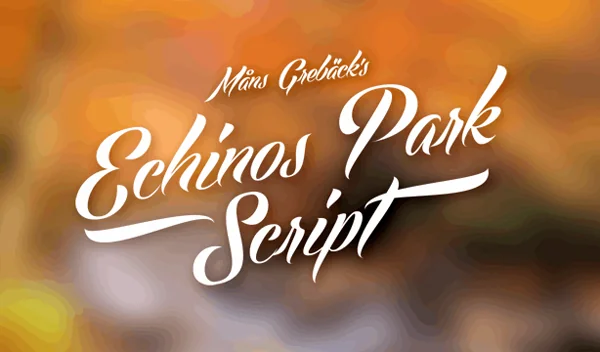
A few days back we presented a collection of calligraphic fonts, which we got a good response. And today we decided to take you deep inside another beautiful handwritten script font.
Every handwritten font cannot be used, therefore, to save you time, from selecting hundreds of thousands of fonts available online, we made a collection of the fifty best script fonts.
All the fonts in this collection are extremely creative and artistically created, we hope you will like this resource from us.
1. akaDora
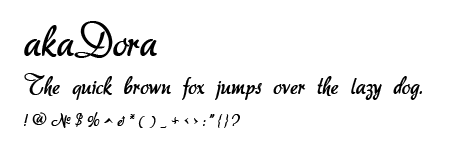
2. Cream Puff
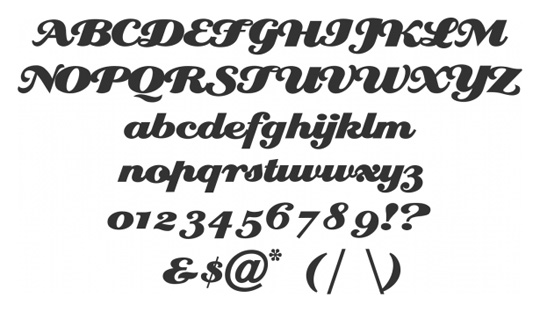
3. Pacifico by Vernon Adams
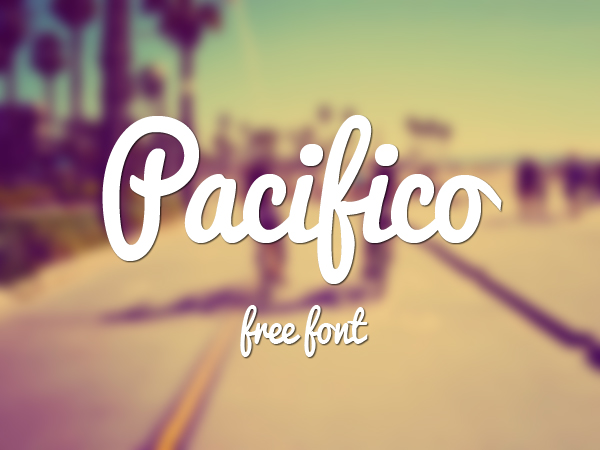
4. CAC Pinafore
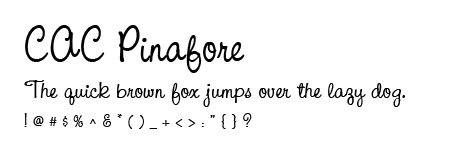
5. Alako
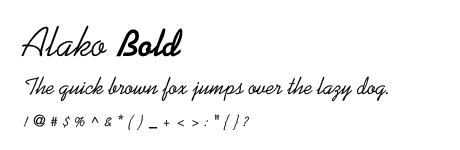
6. Ginga
7. Allura by TypeSETit
8. BRUSH SCRIPT REGULAR
9. Ampersand
10. Ball Park
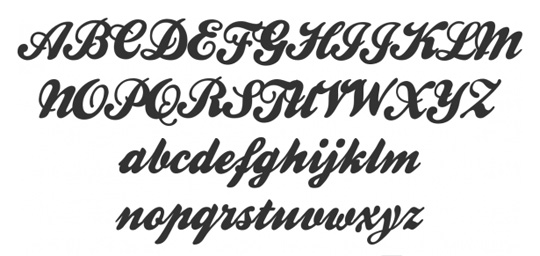
11. BlackJack by Typadelic
12. HONEY SCRIPT
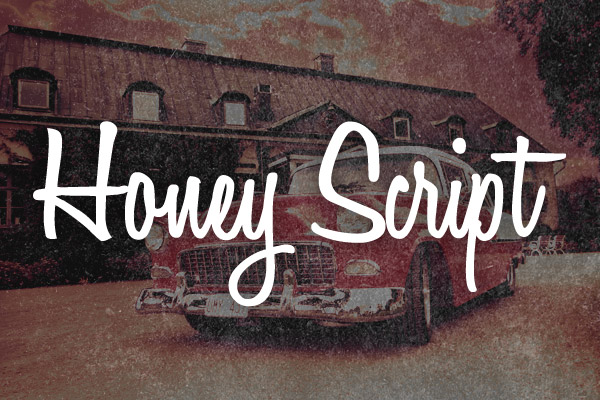
13. Angelina
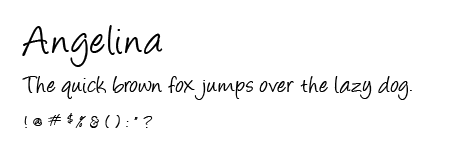
14. Androgyne
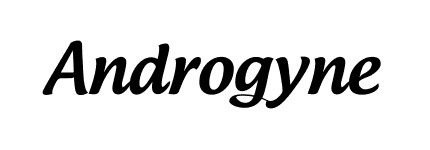
15. Lobster by Pablo Impallari
16. GRAND HOTEL
17. Avant que
18. Angel Tears
19. Reklame Script by HVD Fonts
20. WISDOM SCRIPT
21. Bee Marker Ink
22.?Forelle
23. Jenna Sue by Jenna Sue Design Co.
24. BALLPARK WEINER
25. BethHand
26. Carington
27. Dancing Script OT by Impallari Type
28. LOBSTER
29. Brankovic
30. Dirty and Classic
31. Brook 23
32. Chopin Script
33. Windsong by Bright Ideas
34. MISSION SCRIPT
35. PACIFICO
36. Kaushan Script by Impallari Type
37. Selfish
38. LAVANDERIA
39. Carefree
41. Freebooter
42. FREEHAND 575
43. Chalkdust
44. Remachine Script Font by M?ns Greb?ck
45. Machine Script
46. DEFTONE STYLUS
47. Cheryl